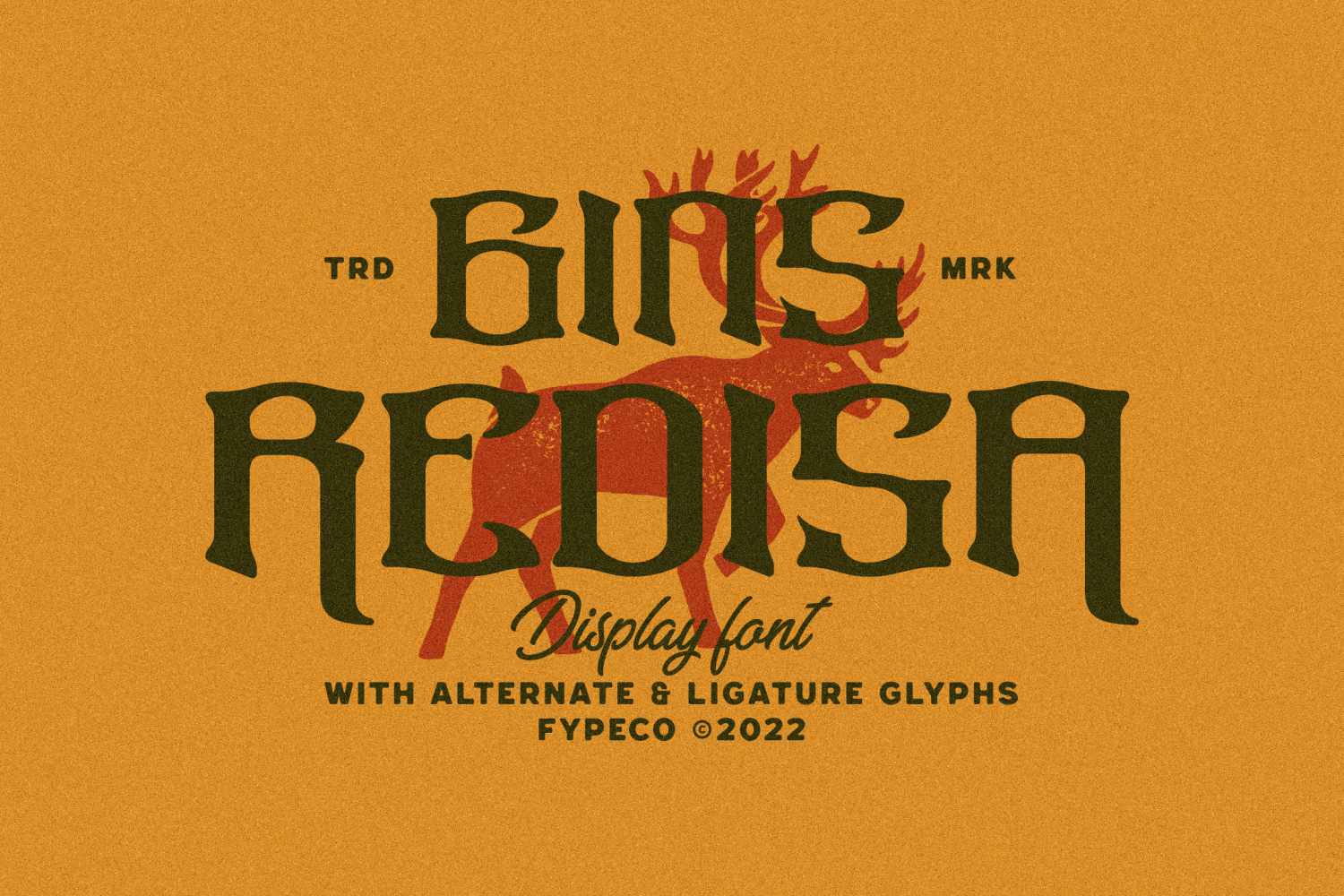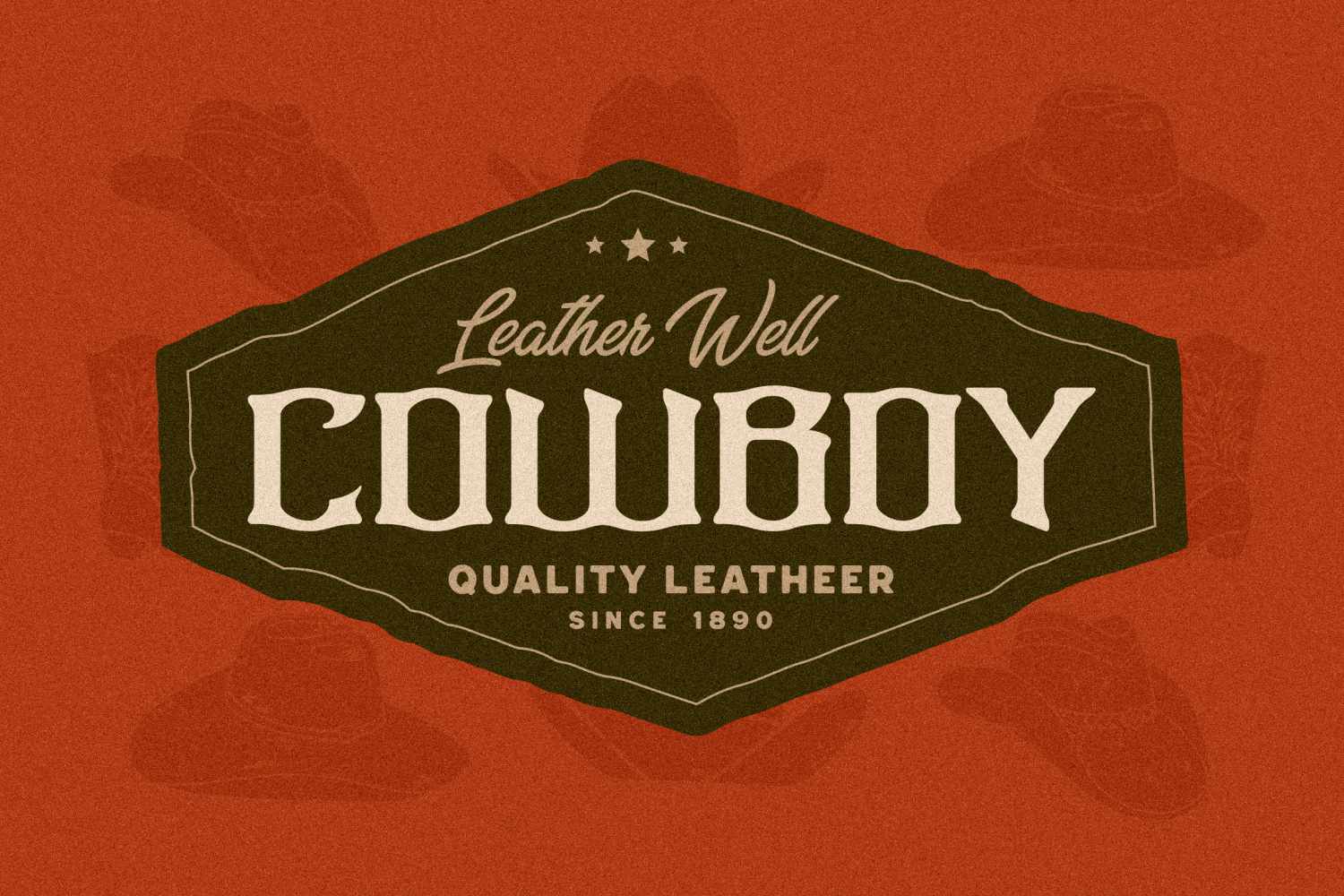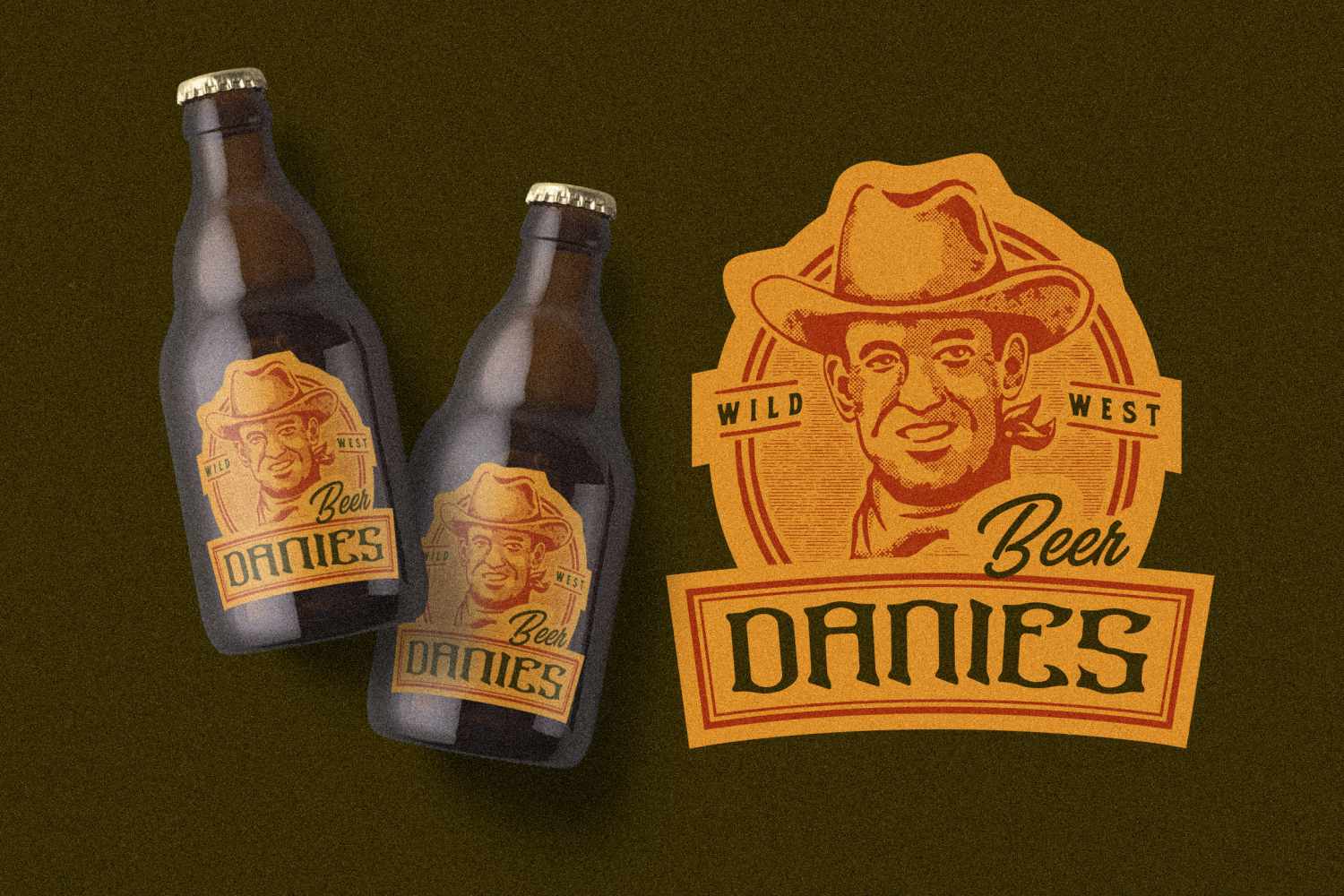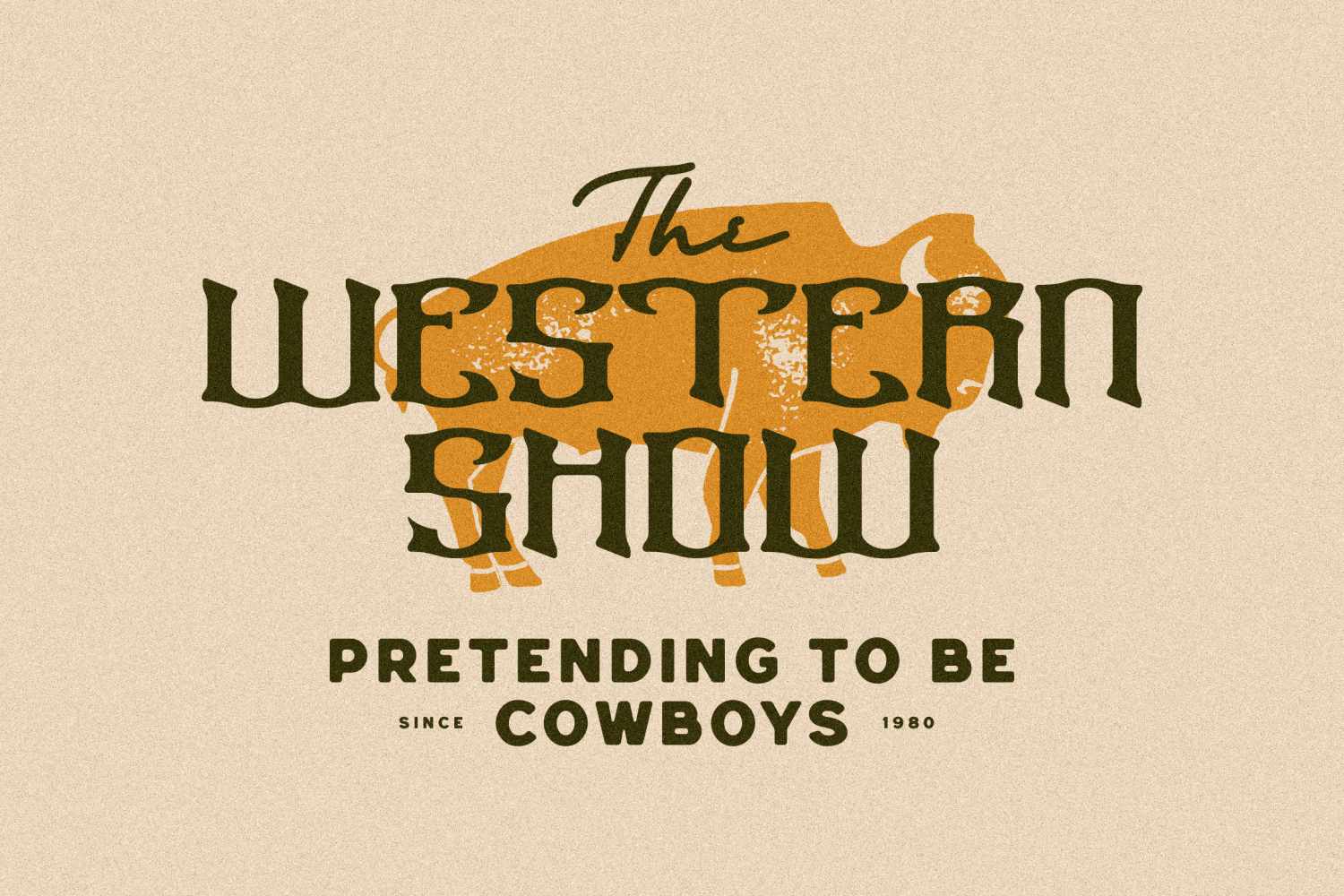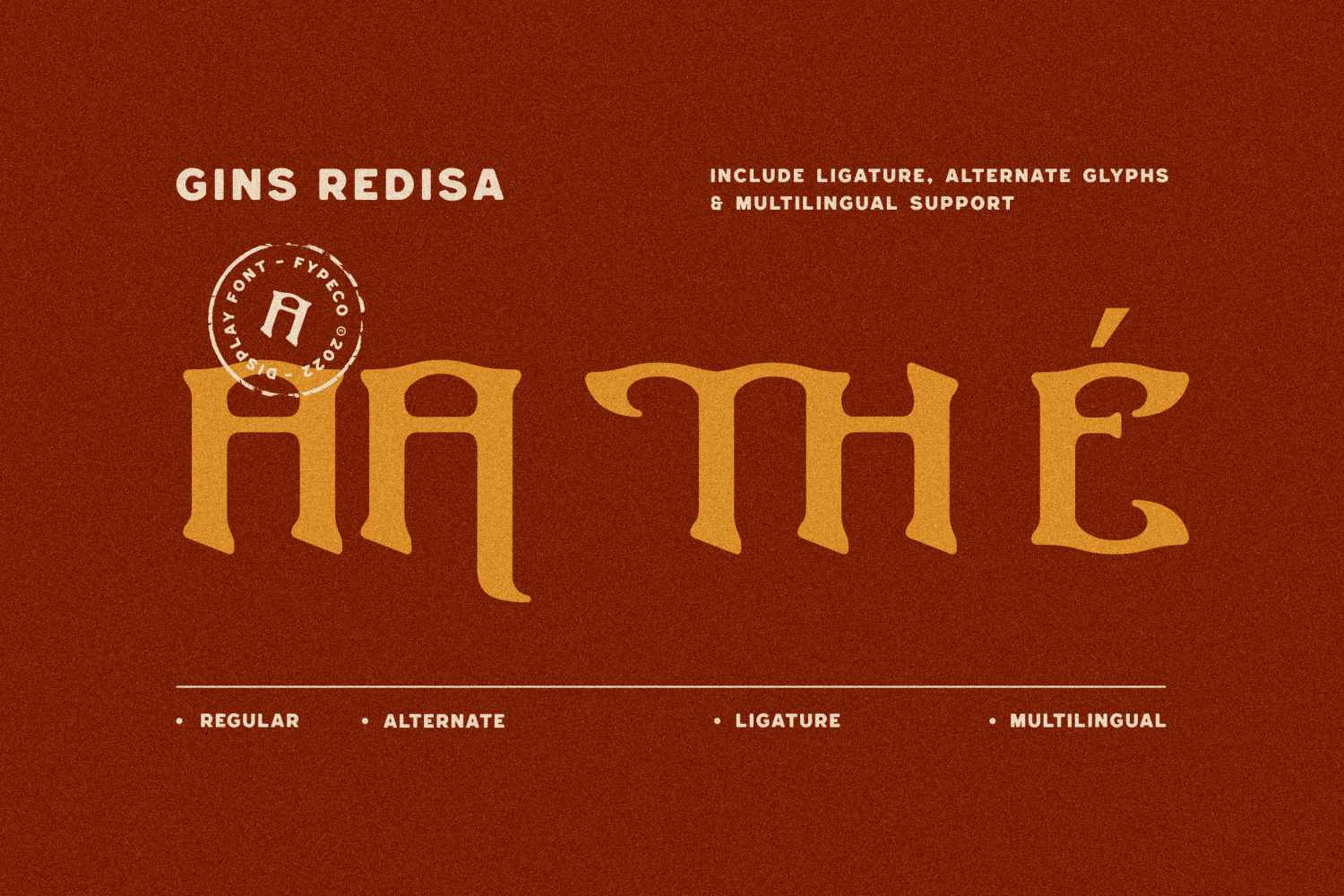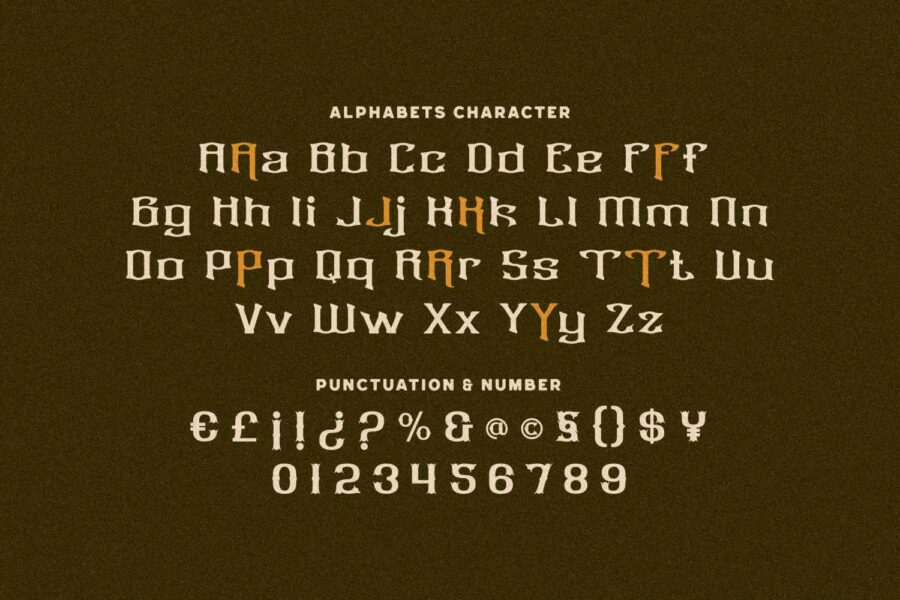
Gins Redisa is a bold vintage display font with strong Western influences and rustic charm. Its unique letterforms feature a handcrafted feel with sharp serifs and organic curves, perfectly capturing the spirit of the wild west, cowboy culture, and retro branding. Designed to stand out, this font is ideal for logos, posters, labels, and packaging that need a touch of rugged authenticity.
Packed with alternates, ligatures, and multilingual support, Gins Redisa offers versatile options to customize your designs. Whether you’re working on beer labels, western shows, vintage apparel branding, or rustic café identities, this typeface brings a timeless and adventurous character to every project.
Gins Redisa